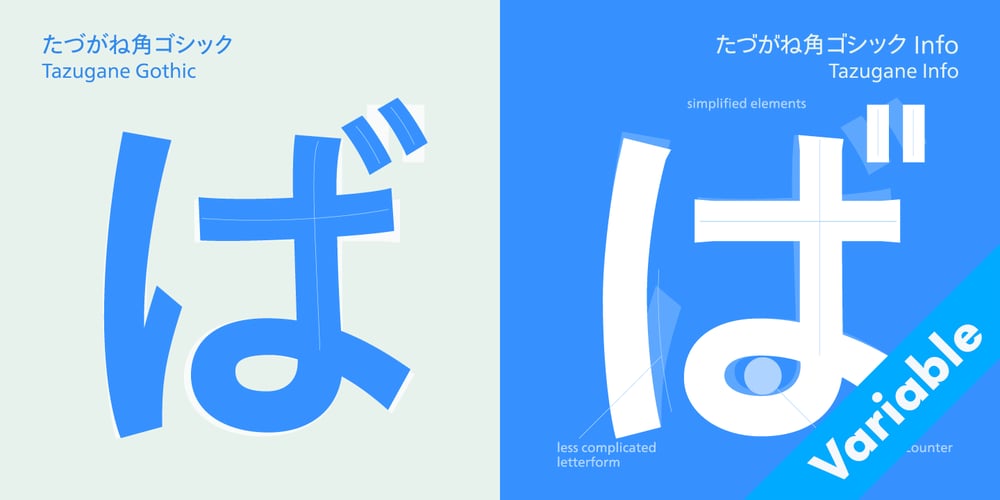
Tazugane Info Variable
Tazugane Info Variable font
Tazugane Info Variable Font Family was designed by Akira Kobayashi, Monotype Design Studio, Monotype Design Studio Japan, Kazuhiro Yamada, Ryota Doi and published by Monotype. Tazugane Info Variable contains 1 styles and family package options. Tazugane Info is a Japanese typeface family developed by the Monotype Studio, an alternative set of kana designed to match the kanji and Latin alphabet which retains the original form of the Tazugane Gothic. In contrast to the Tazugane Gothic, the kana of Info family is more systematically designed in order to give the text a calm, restraint look.